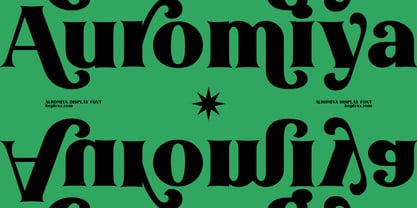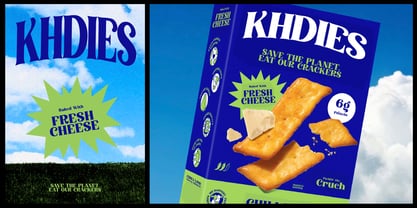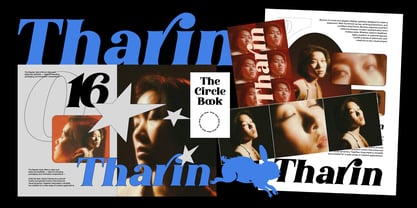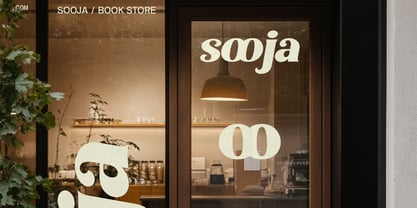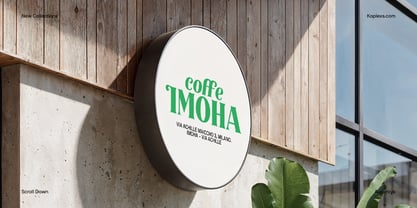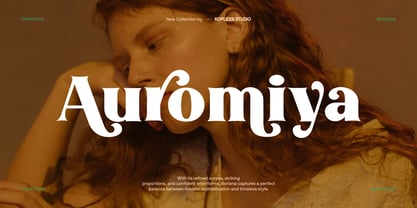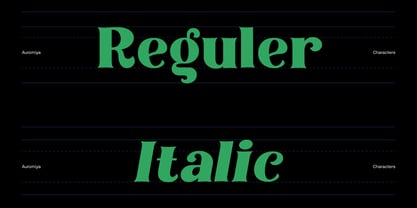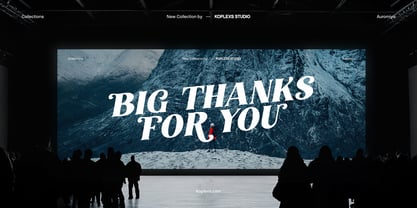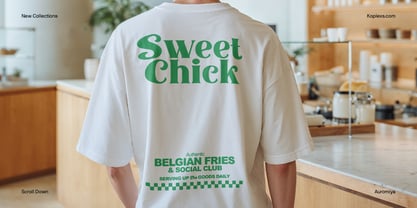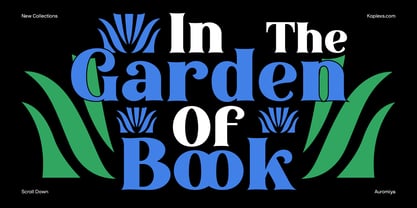
Auromiya
by Koplexs Studio
The Auromiya Font Family was designed by Ahmad Muslimin and published by Koplexs Studio. Auromiya contains 1 styles and family package options. More about this family
Auromiya is a high-contrast display serif with sculptural curves, confident proportions, and distinctive curled terminals. Inspired by classic editorial typography and contemporary visual culture, it combines timeless elegance with a bold, playful character.
Its expressive letterforms create a strong presence in headlines while maintaining a refined and polished appearance. The dramatic contrast between thick and thin strokes gives every word a memorable rhythm, making Auromiya especially effective at large sizes.
Auromiya is well suited for fashion branding, logos, packaging, magazine covers, posters, advertising, book covers, merchandise, restaurant identities, social media graphics, and website headlines. It can bring sophistication to luxury projects or add personality to colorful, modern layouts.
Pair Auromiya with a clean sans serif for balanced compositions, or use it on its own when the typography needs to become the main visual element. Choose Auromiya to give your creative work an elegant, expressive, and recognizable voice.